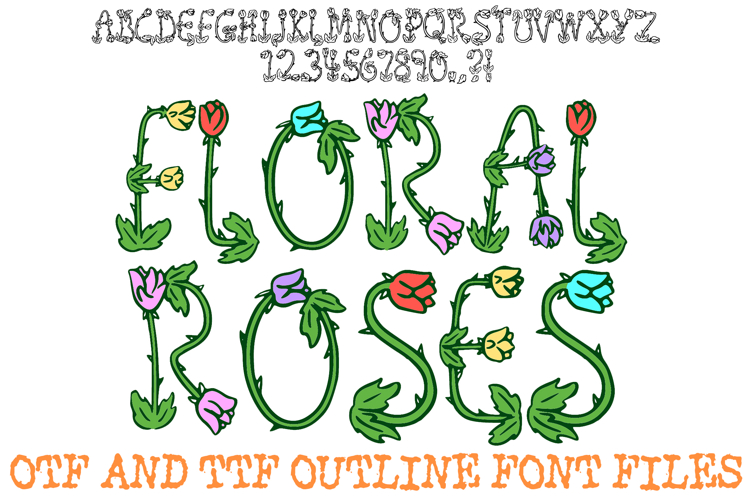
Floral Roses Font Spring Flower Doodle Lettering ABC OTF
Let your creativity bloom with the Floral Roses Font! This stunning, hand-drawn display font transforms your text into a vibrant garden, with each character intricately crafted from winding green stems, lush leaves, and colorful rosebuds in red, yellow, pink, and blue. It is the perfect choice for romantic wedding stationery, whimsical spring-themed branding, nursery wall art, and botanical-inspired craft projects.
The organic, doodle-style aesthetic brings a fresh, artisan feel to your designs while maintaining a unique, high-energy personality. Whether you're designing for a boutique florist, creating seasonal classroom decor, or working on custom apparel, the Floral Roses Font provides a professional and charming look that captures the beauty of nature.
Why Your Designs Will Stand Out:
Vibrant Rose Details: Every letter features a mix of colorful rosebuds and leafy green stems for a true garden aesthetic.
Hand-Crafted Whimsy: The hand-drawn doodle style adds an artisan touch to headlines and titles.